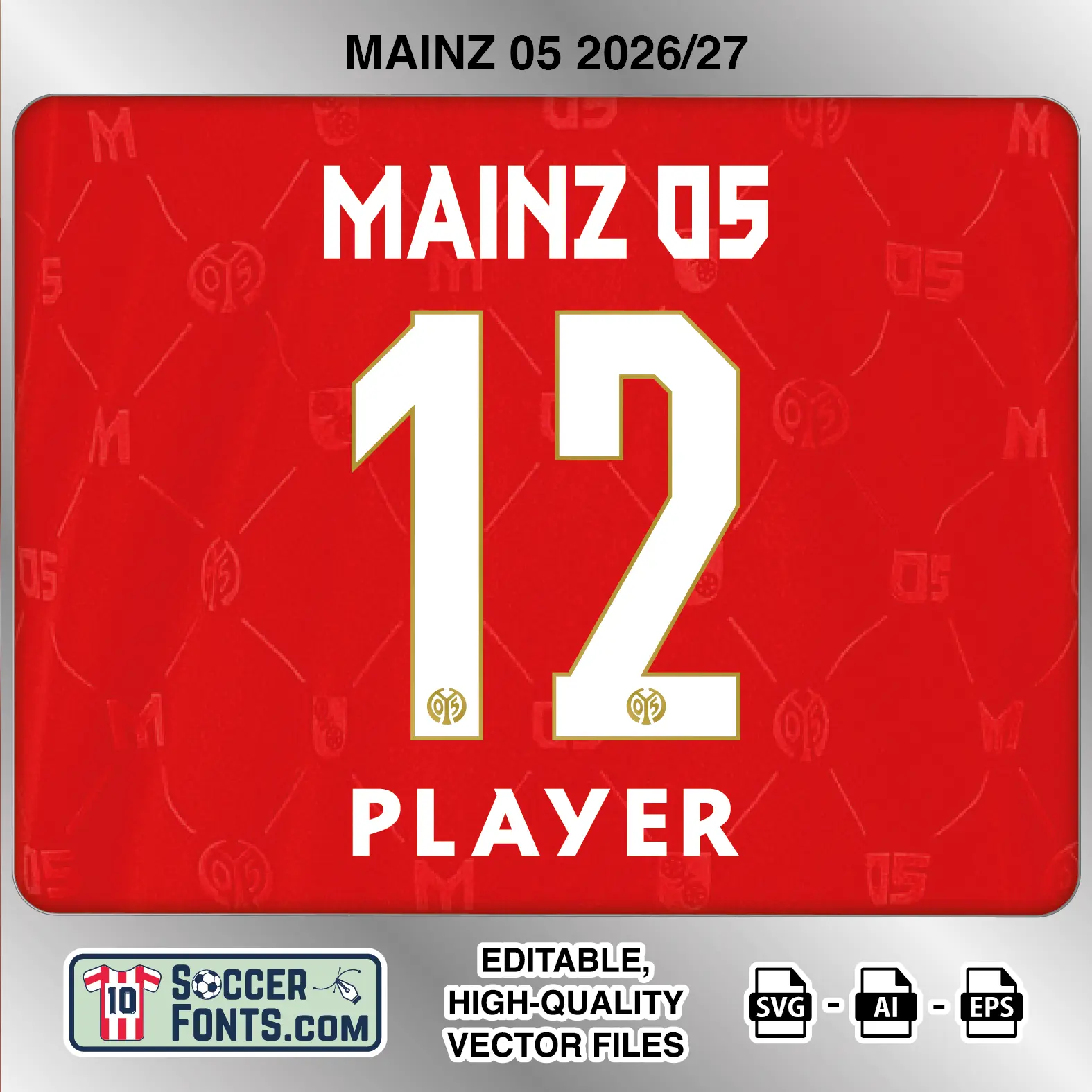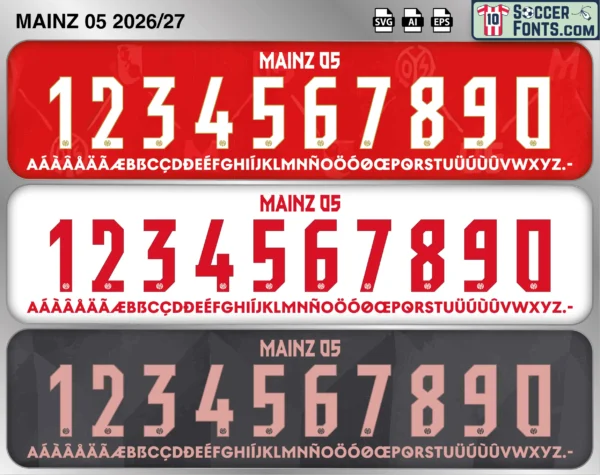
About Mainz 2026-27 Font
Download Mainz 2026-27 font, an editable soccer jersey lettering design in vector format inspired by the Mainz 05 kit style used during the 2026-27 football season. The collection includes home, away and third shirt treatments and is prepared for football shirt recreations, custom jersey projects, football kit mockups and sports graphic design workflows.
Visual Identity of the Font Design :
The lettering uses a bold, condensed uppercase construction built around straight strokes, angular cuts and squared proportions. Player names have distinctive pointed details, including triangular notches and sharply cut terminals that give several letters an unconventional geometric appearance. The numerals are considerably taller and heavier, with flat edges and clipped corners rather than rounded curves.
The 1 has a sharply angled upper section, the 2 combines a squared top with a long diagonal stroke and broad base, the 4 uses an open angular structure, and the 8 is formed from two compact geometric counters. A small Mainz 05 emblem appears near the bottom of every numeral. The supplied previews show white lettering on the red home treatment, red lettering on the light away presentation, and pale pink lettering against the dark charcoal third shirt. The character set also includes numerous accented uppercase letters for international player names.
Context of 2026-27 Season for Mainz 05 :